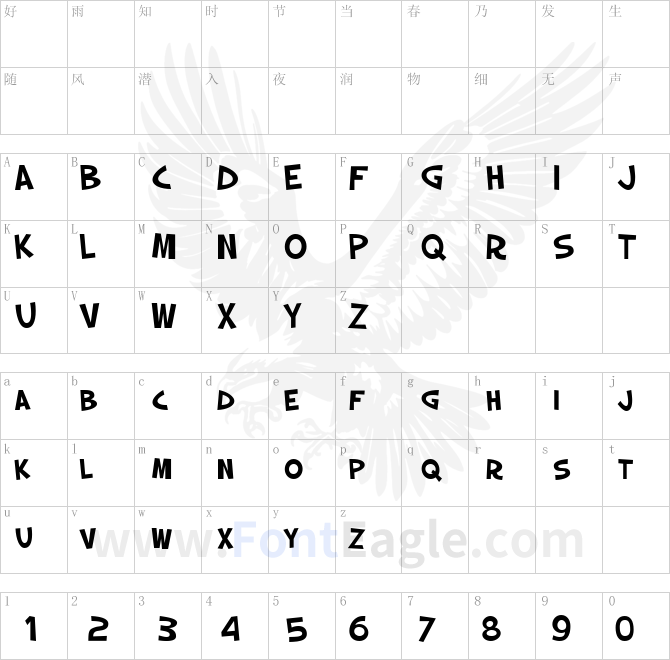
- Font name:SF Slapstick Comic SC
- Font Subfamily ID:ShyFoundry: SF Slapstick Comic SC: 2008
- Font Full Name:SF Slapstick Comic SC
- Postscript:SFSlapstickComicSC